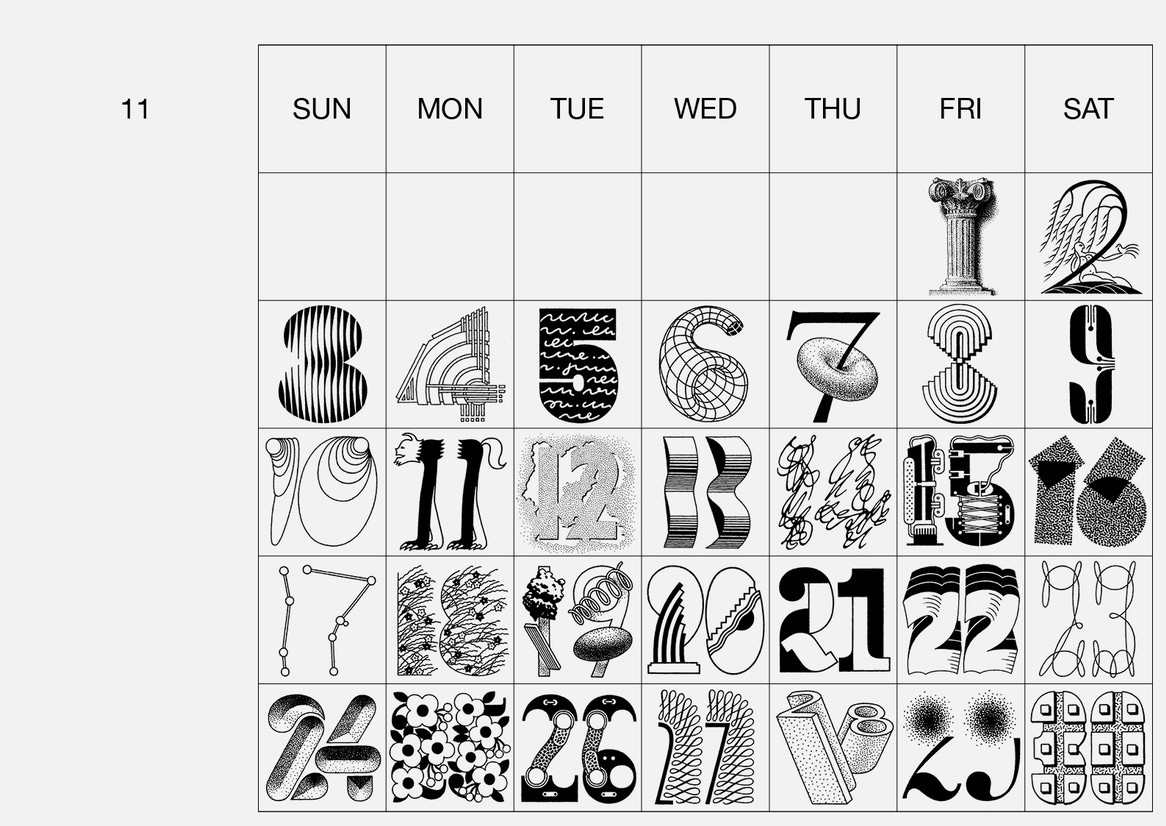
Celebrate each day of 2024 with a unique, hand-drawn number. A yearly tradition from Japanese designer Tezzo Suzuki since 2012. This year, 101 numerals are replaced by new designs.